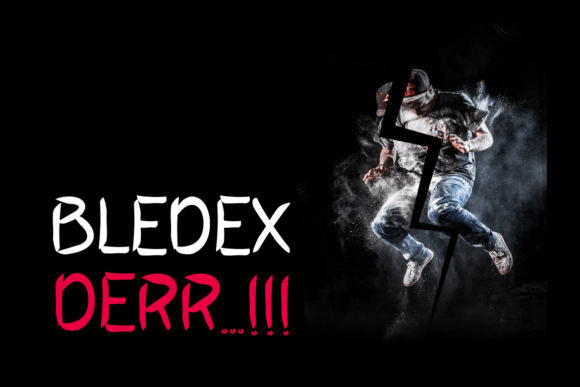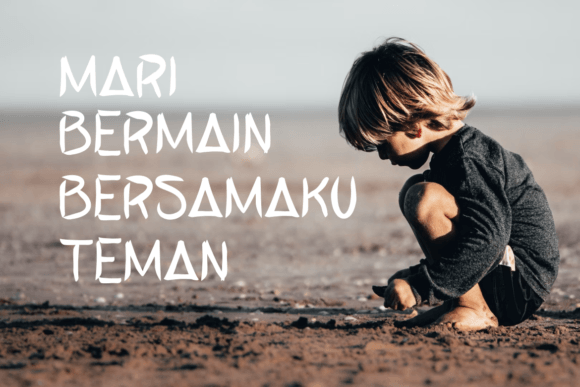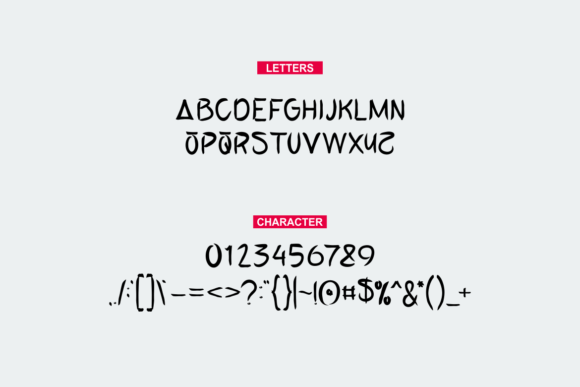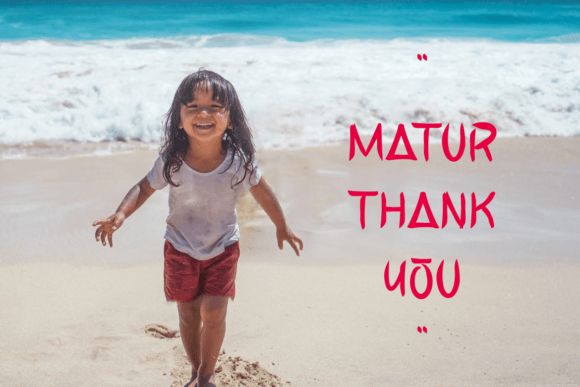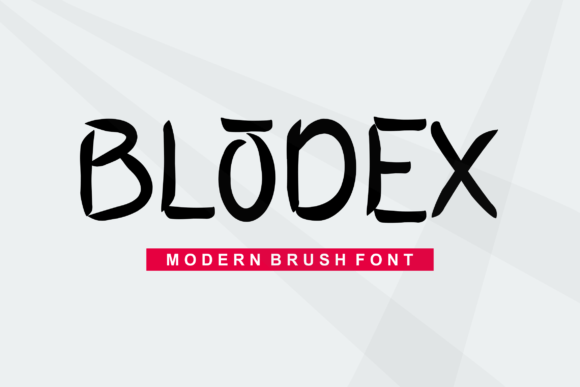
Introducing Blodex Font: The Sweet and Friendly Handwritten Font for Your Creative Projects
Are you a designer, crafter, or DIY enthusiast looking for a font that can add a personal touch to your projects? Look no further than Blodex Font, a sweet and friendly handwritten font that’s perfect for a wide range of designs. With its natural and unique style, Blodex Font is incredibly versatile and can be used in various creative projects, from handmade crafts to digital designs.
The Characteristics of Blodex Font
Blodex Font is a handwritten font that exudes warmth and friendliness. Its natural and unique style makes it stand out from other fonts, and its sweetness is sure to capture the hearts of your audience. The font’s flowing lines and curves give it a soft, approachable feel that’s perfect for designs that require a personal touch.
One of the best things about Blodex Font is its versatility. It’s a font that can be used in a variety of designs, from:
• Handmade crafts, such as card making, scrapbooking, and journaling
• Digital designs, such as social media graphics, blog posts, and website headers
• Branding and packaging designs, such as logos, labels, and product packaging
• Stationery and paper crafts, such as invitations, gift tags, and paper flowers
The Benefits of Using Blodex Font
So, why choose Blodex Font for your creative projects? Here are just a few benefits of using this amazing font:
• Unique and eye-catching: Blodex Font is a one-of-a-kind font that’s sure to grab attention. Its unique style will set your designs apart from others and make them more memorable.
• Easy to read: Despite its handwritten nature, Blodex Font is incredibly easy to read, making it perfect for designs that require a lot of text, such as blog posts and social media graphics.
• Versatile: As mentioned earlier, Blodex Font can be used in a wide range of designs, making it a great addition to any designer’s toolkit.
• Personal touch: Blodex Font adds a personal touch to your designs, making them feel more approachable and relatable.
How to Use Blodex Font in Your Designs
Using Blodex Font in your designs is easy! Here are a few tips to get you started:
• Pair it with other fonts: Blodex Font pairs well with other fonts, such as sans-serif fonts and script fonts. Experiment with different combinations to find the perfect look for your design.
• Use it for headings and titles: Blodex Font is perfect for headings and titles, where its unique style can really shine.
• Add it to your digital designs: Blodex Font can be used in digital designs, such as social media graphics and website headers, to add a personal touch.
• Experiment with colors: Blodex Font looks great in a variety of colors, from bright and bold to soft and pastel.
In conclusion, Blodex Font is a sweet and friendly handwritten font that’s perfect for designers, crafters, and DIY enthusiasts. Its natural and unique style makes it incredibly versatile, and its ease of use makes it a great addition to any designer’s toolkit. Whether you’re creating handmade crafts, digital designs, or branding and packaging designs, Blodex Font is sure to add a personal touch and make your designs stand out.